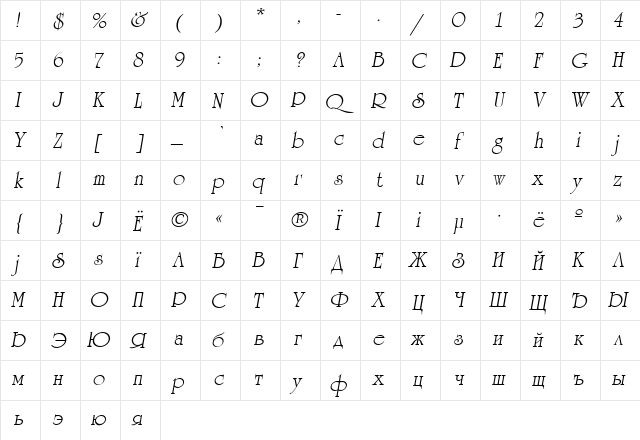
AG_University Italic
Design Context for AG_University Typeface
AG_University is a composed and adaptable typeface that performs quietly and consistently across a wide range of design contexts. Its italic angle brings a sense of urgency and motion to the letterforms.
Pro Tip: Try AG_University for annotation and caption copy alongside an upright companion — the contrast in angle creates a dynamic but ordered typographic system.